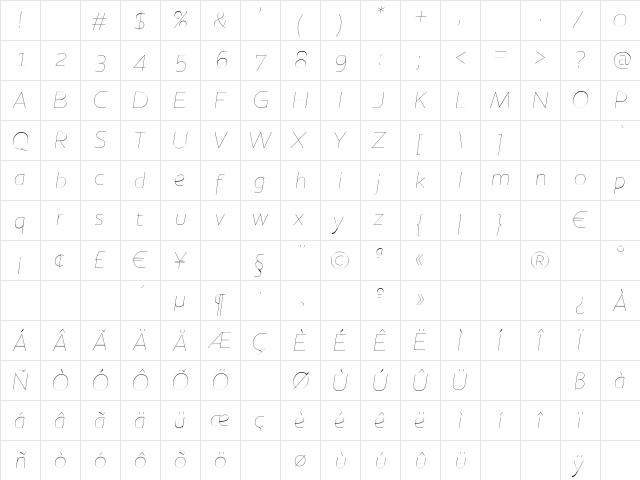
HouschkaAltThinItalic Regular Font Preview
HouschkaAltThinItalic Regular
Design Context for HouschkaAltThinItalic Typeface
HouschkaAltThinItalic offers clean, dependable letterforms without strong stylistic allegiance, making it a practical choice for designers who need flexibility. Its italic angle brings a sense of urgency and motion to the letterforms. The delicate stroke weight brings airiness and refinement to layouts.
Pro Tip: Try HouschkaAltThinItalic for annotation and caption copy alongside an upright companion — the contrast in angle creates a dynamic but ordered typographic system.